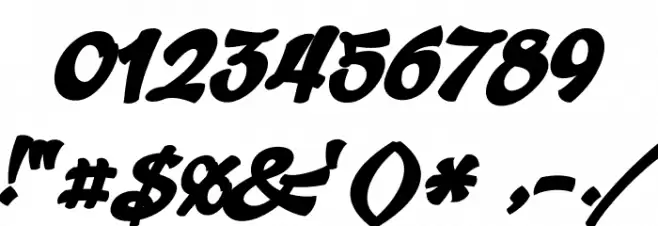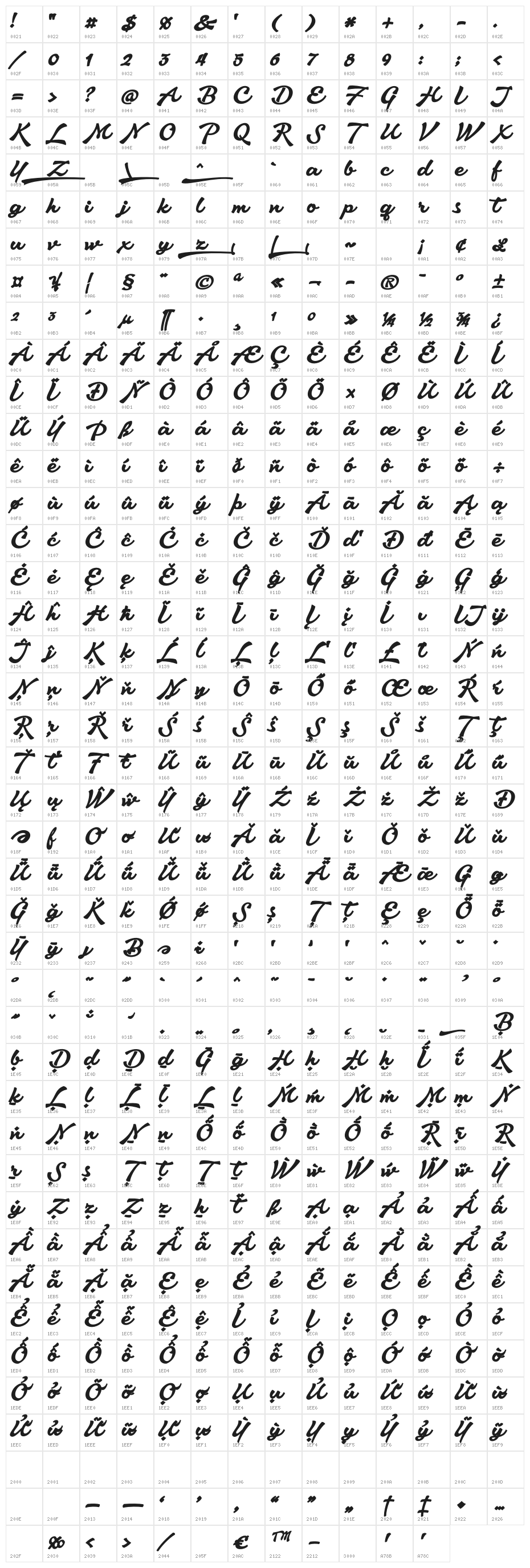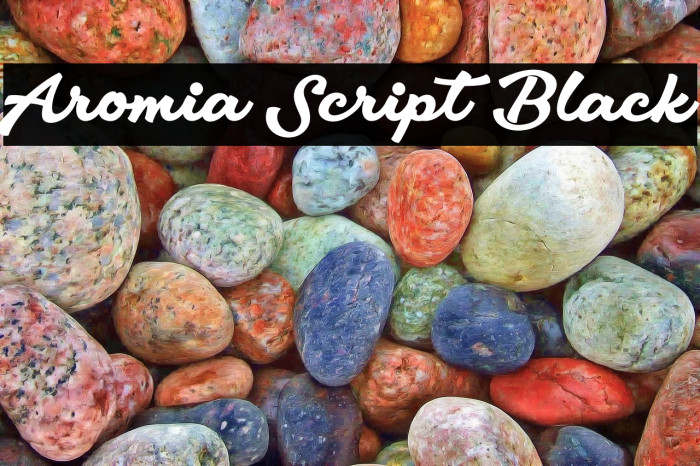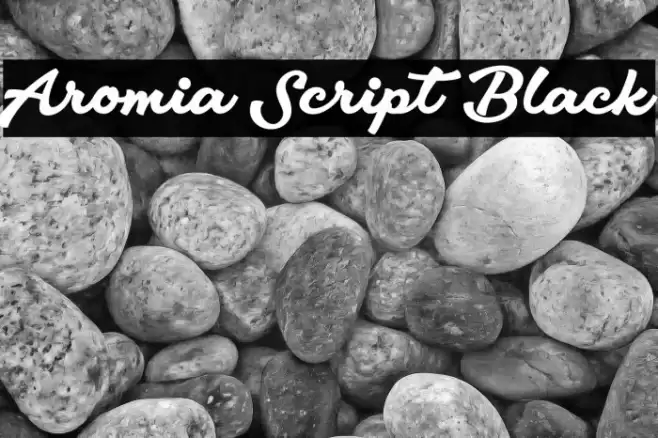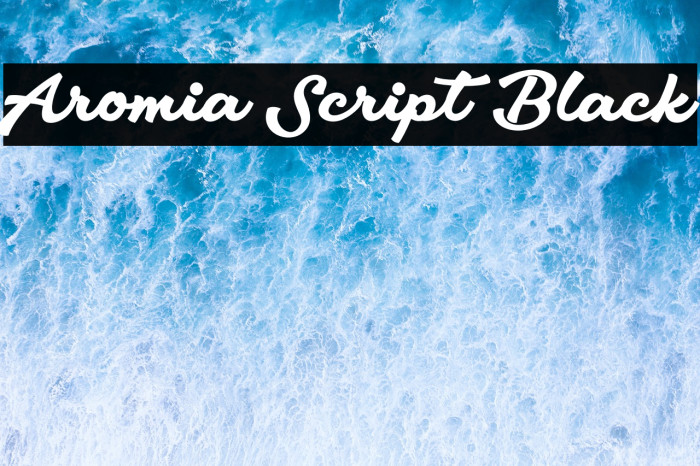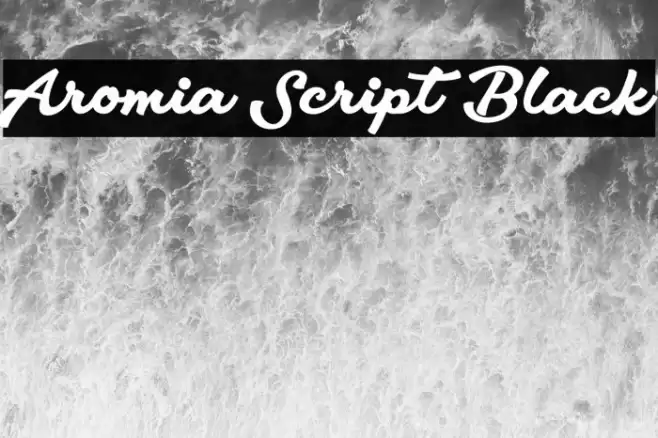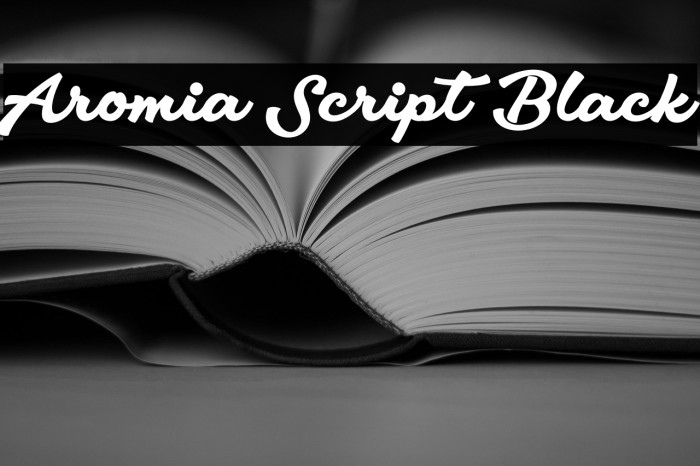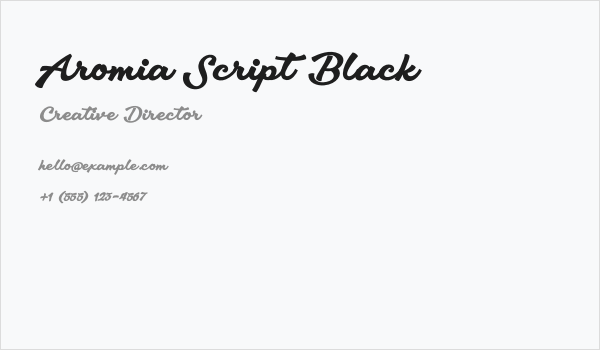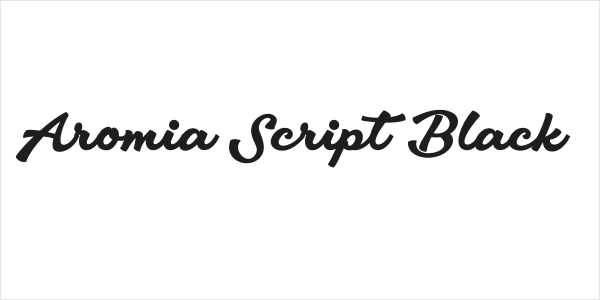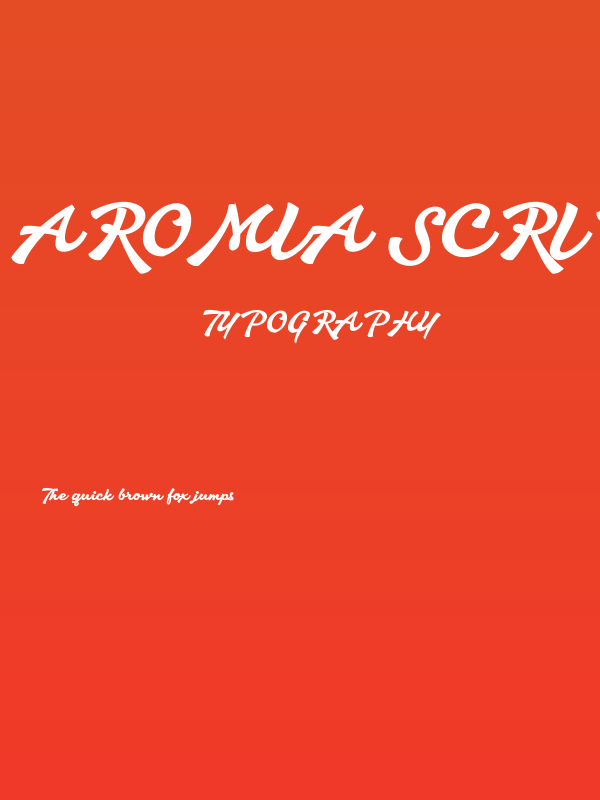
Aromia Script Black Font
Aromia Script Black Description
This font showcases a bold and expressive script style with a strong presence. The characters are interconnected, creating a fluid and dynamic appearance. The uppercase letters are slightly larger and more pronounced, while the lowercase letters maintain a consistent flow. The numbers are bold and easily readable, complementing the overall design. Special characters are integrated seamlessly, adding to the font's versatility. The strokes are thick and consistent, providing a sense of strength and confidence. This font is ideal for making a statement, with its eye-catching and stylish design.
| Proposed Projects | Ideal for branding, logos, headlines, and invitations where a bold, stylish script is desired. |